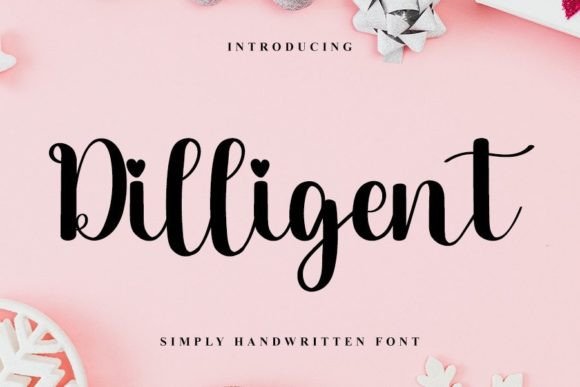
In a world of digital monotony, where every font seems to blend into the next, Dilligent Font stands out as a beacon of individuality. Its enchanting script, reminiscent of a bygone era, lends an air of sophistication to any project it graces. Picture your designs exuding elegance and charm, captivating your audience with every stroke.
With Dilligent Font, the possibilities are endless. Craft heartfelt gift cards that convey the depth of your emotions. Design invitations that promise an unforgettable experience. Compose logos that speak volumes about your brand's unique personality. Let your imagination run wild and create stunning social media posts, posters, and flyers that leave a lasting impression.
This exquisite font is the brainchild of Kongsi.Co, a renowned foundry known for its exceptional craftsmanship. Their passion for creating fonts that resonate with the human spirit is evident in every curve and flourish of Dilligent. Whether you're a seasoned designer or just starting out, this font is a must-have for your creative arsenal.